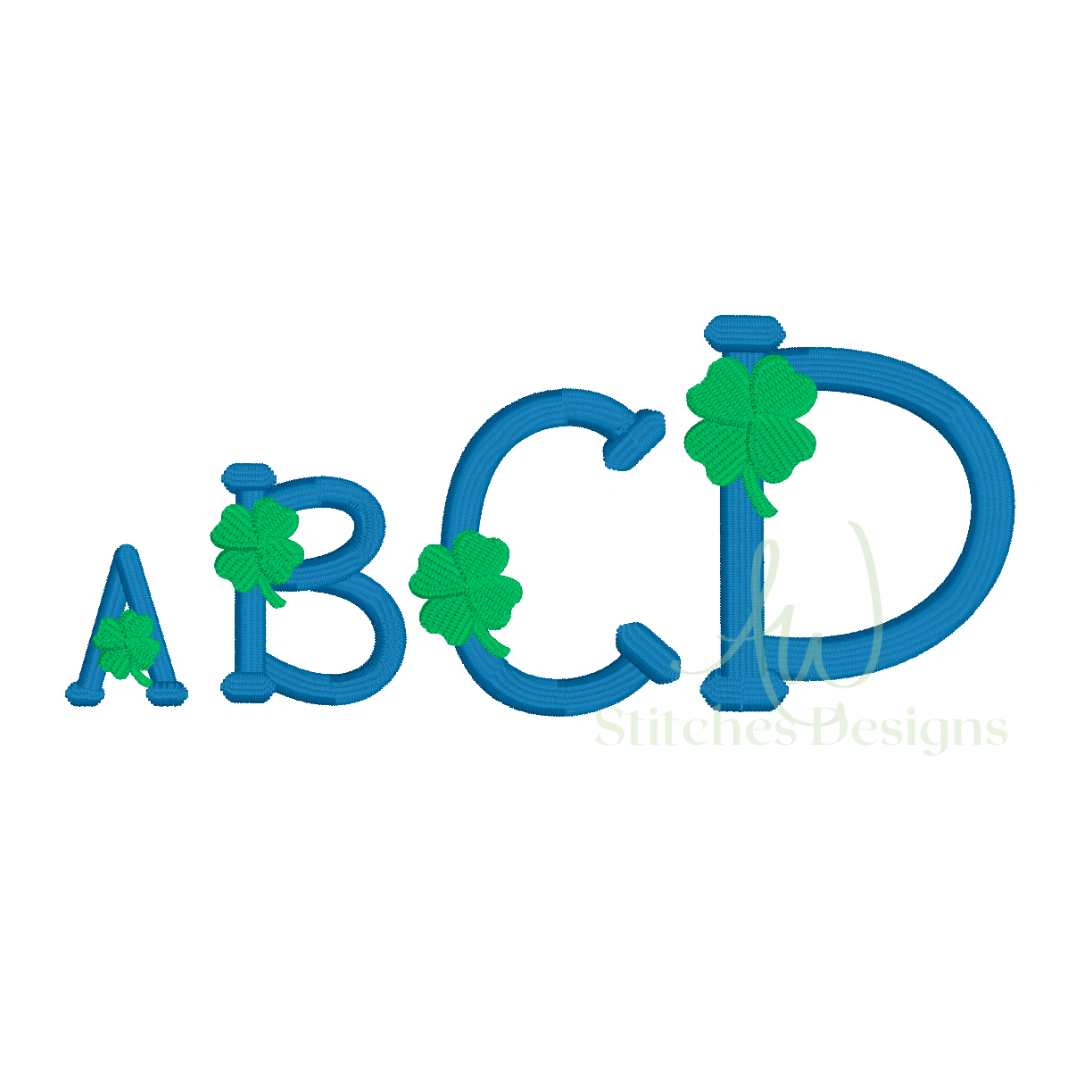
Four leaf clover charm satin stitch font for machine embroidery design
Four leaf clover lucky charm satin stitch font for machine embroidery design file 1"- 2.5" upper and lowercase letters with BX.
-26 lower and upper case letters A through Z